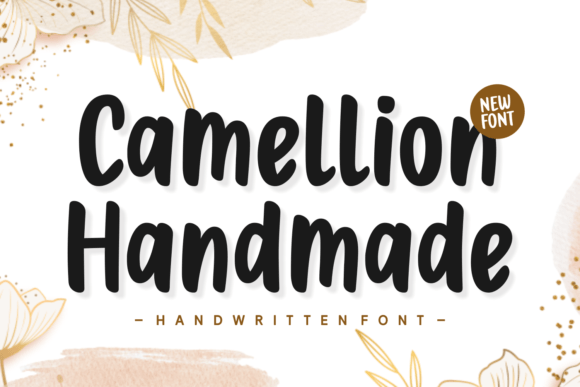
Introducing Camellion Handmade: A Breathtaking Script Font for Every Creative Endeavor
Step into a world of boundless creativity with Camellion Handmade, the captivating script font crafted to ignite your imagination. Designed by the visionary Ade from 7NTypes, this modern handwritten masterpiece is a symphony of style and elegance.
With its natural and effortless flow, Camellion Handmade brings an air of authenticity to any project that yearns for a personal touch. Its versatile spirit shines through, whether you're conjuring up wedding invitations that whisper romance, crafting thank you cards that radiate gratitude, or designing logos and business cards that exude professionalism.
Embrace the boundless possibilities of Camellion Handmade and let your creative visions soar. Its meticulous design makes it the perfect choice for greeting cards that carry heartfelt messages, quotes that inspire the soul, and any other design project that craves a unique and customized flair.
Indulge in the beauty of Camellion Handmade and watch your creative dreams come alive. Let its enchanting curves paint a picture of your imagination and create designs that leave a lasting impression.